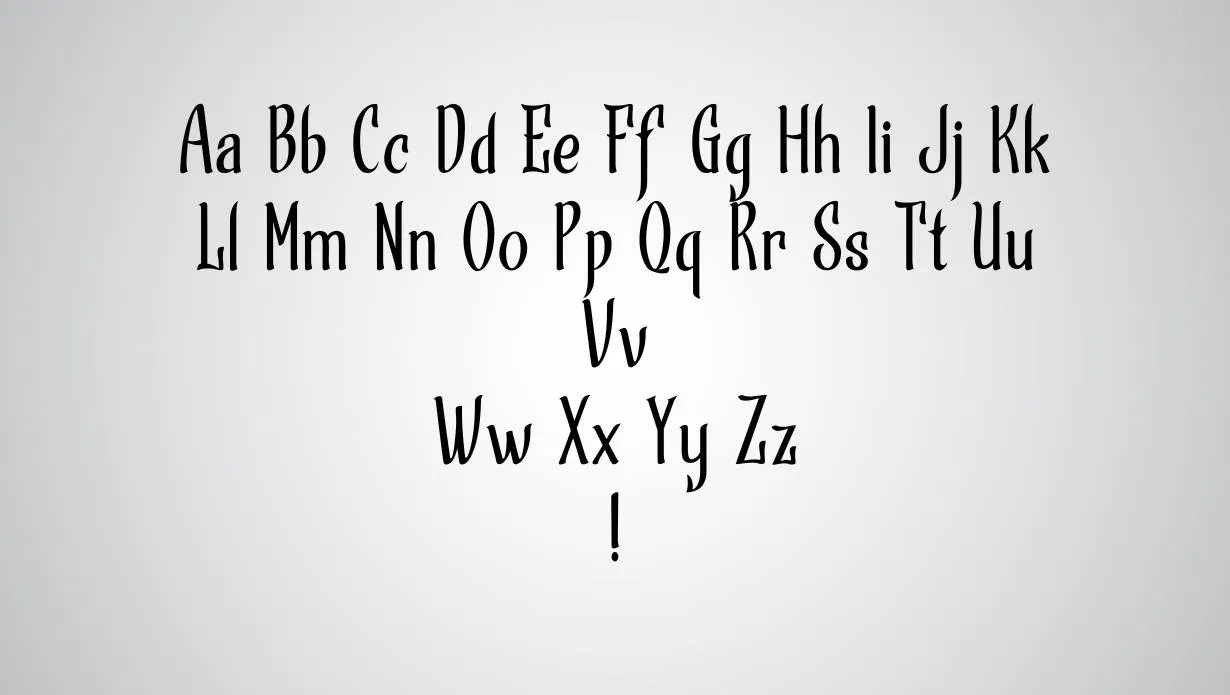
The Prince Font is a charming and playful choice in typography, perfect for projects that want to add a touch of whimsy and fun. Its lively characters make it ideal for creative designs or anything that desires a youthful vibe.